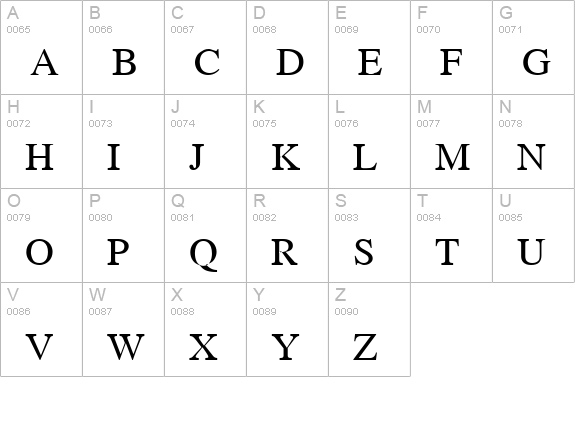
Cardiff font is a stunning typeface that effortlessly combines elegance and versatility. Its sleek and modern design captures attention while maintaining a timeless appeal. With its unique letterforms and exquisite details, Cardiff font is perfect for a wide range of creative projects, from branding and logo design to editorial layouts and social media graphics. What makes Cardiff font truly special is that it is available for free! Yes, you heard it right. This incredible font can be freely downloaded from FontsMarket.com, a trusted online platform for high-quality fonts. Now you can enhance your designs without any cost, making Cardiff font a fantastic addition to your font library. Whether you are a professional graphic designer or a creative enthusiast, Cardiff font offers endless possibilities. Its carefully crafted characters and smooth curves make it easy to read and ensure legibility even at smaller sizes. The wide range of weights and styles available allows you to experiment and create unique combinations that perfectly suit your design needs. Cardiff font's versatility shines through in both print and digital applications. Its clean and crisp appearance adds a touch of sophistication to any project, elevating its overall aesthetic. From elegant invitations and stationery to eye-catching headlines and website typography, Cardiff font will undoubtedly leave a lasting impression on your audience. So why wait? Visit FontsMarket.com today and download Cardiff font for free. Unleash your creativity and bring your designs to life with this remarkable typeface. Whether you're working on personal or commercial projects, Cardiff font is the perfect choice to add a touch of elegance and professionalism. Don't miss out on this incredible opportunity to enhance your designs with this stunning font that is freely available at FontsMarket.com.